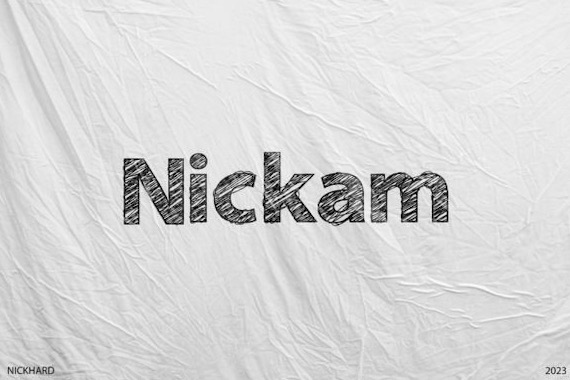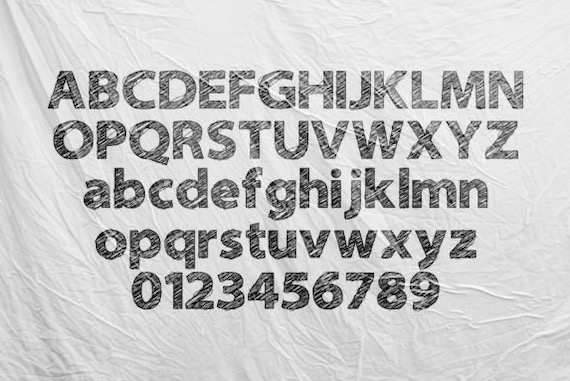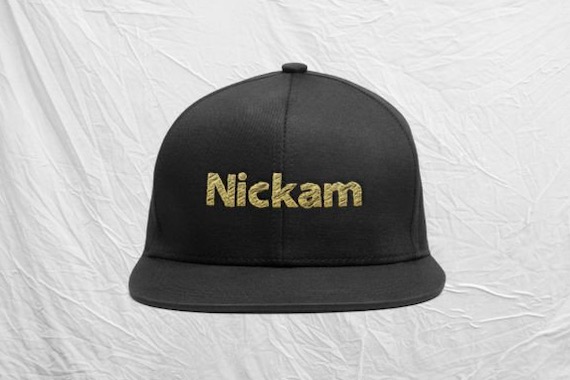
Nickam is a quirky and playful display font that was created and shared by Nickhard . Add it to your crafty ideas and enjoy the results!
Nickam Display Font